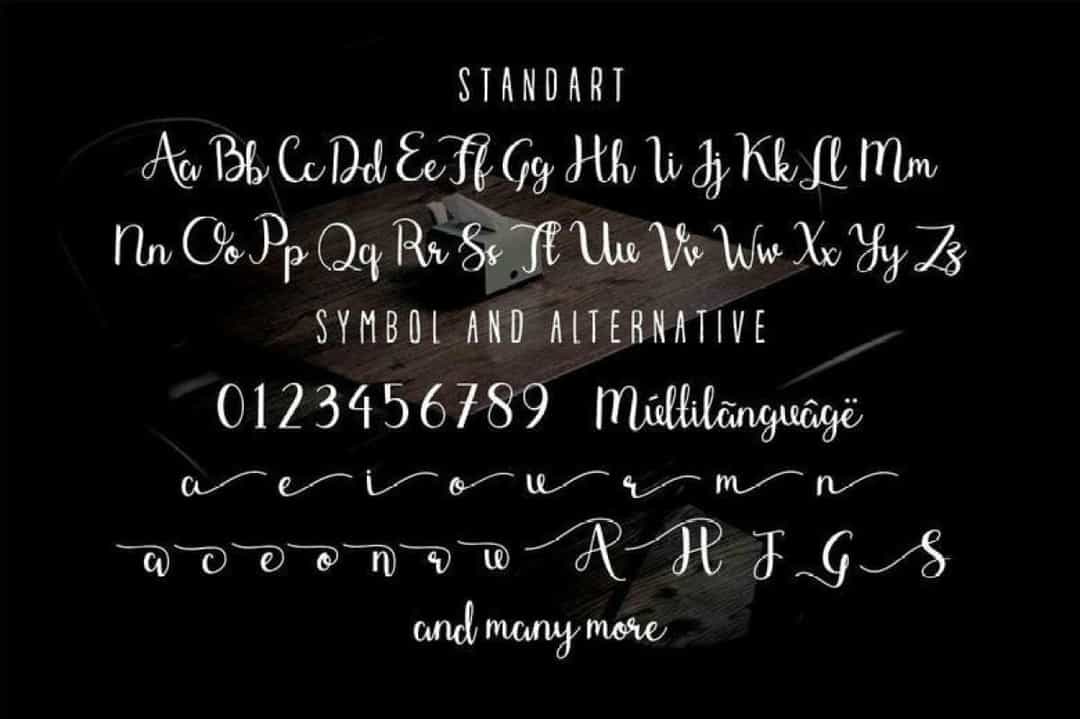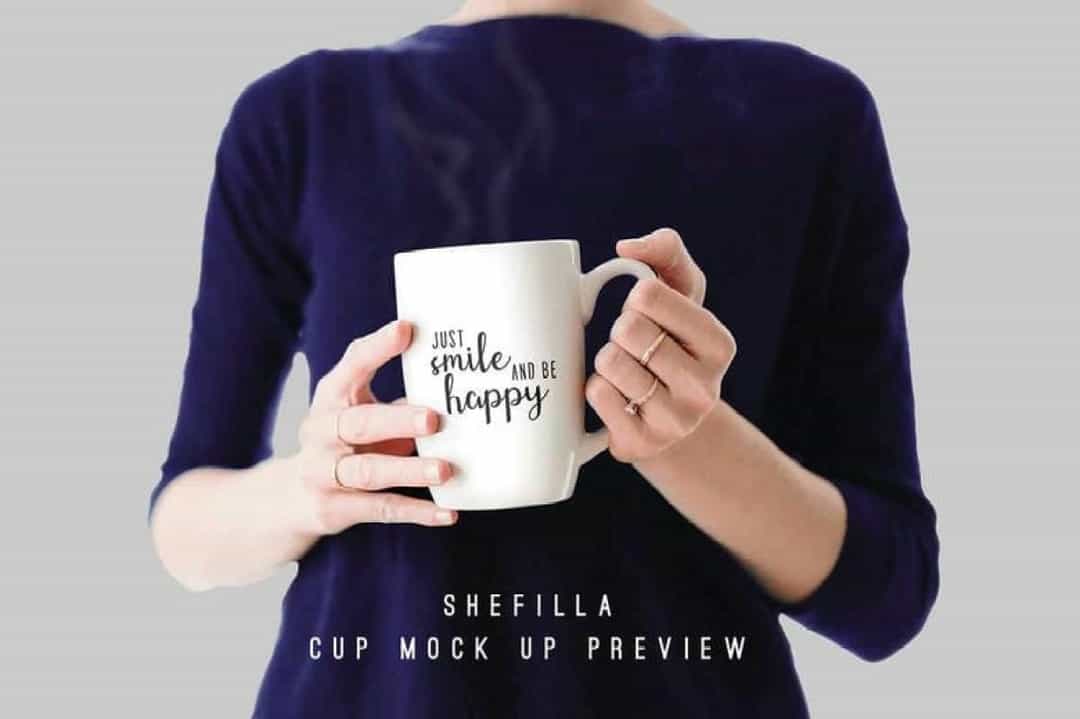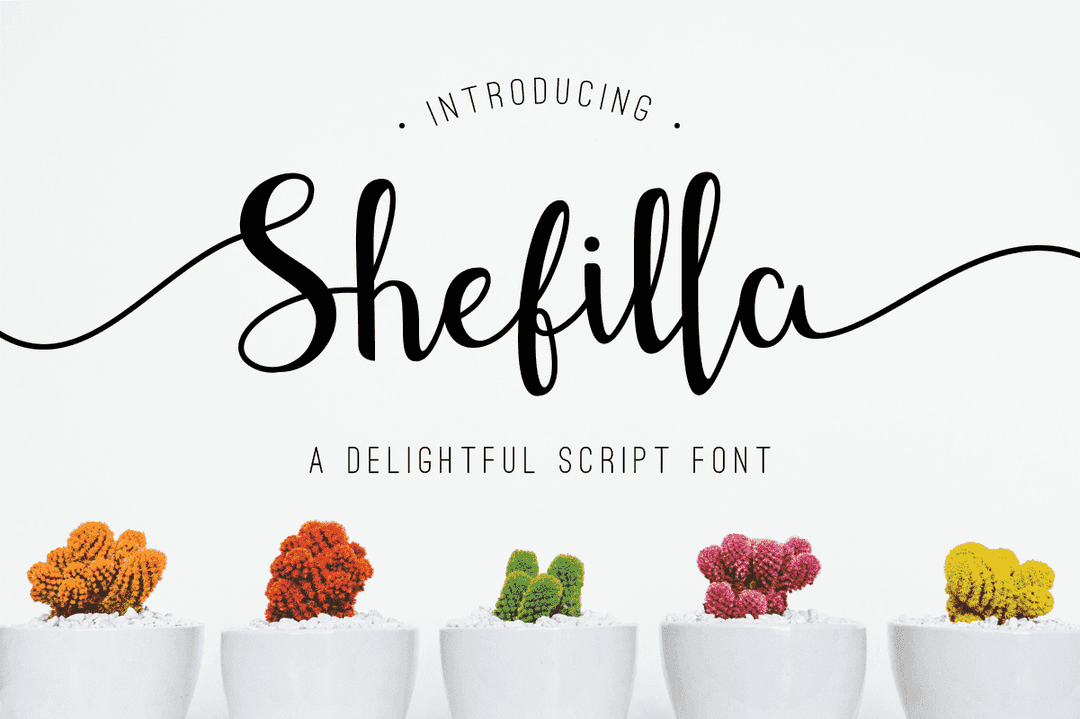
Discover Shefilla Script Font, part of the Calligraphy collection—a versatile and unique font perfect for adding a personal touch to your projects. Download it for free and enjoy crafting designs with style, from invitations to social media posts. This font is available exclusively for personal use, giving you the freedom to create without limits. Unlock your creativity with Shefilla Script Font today!
Hello and Welcome to Shefilla Font is elegant handwritten script font with sophisticated elegance, it is perfect for design projects that require a handmade or hand written feel. Developed together with Jamaludin Ahmad.